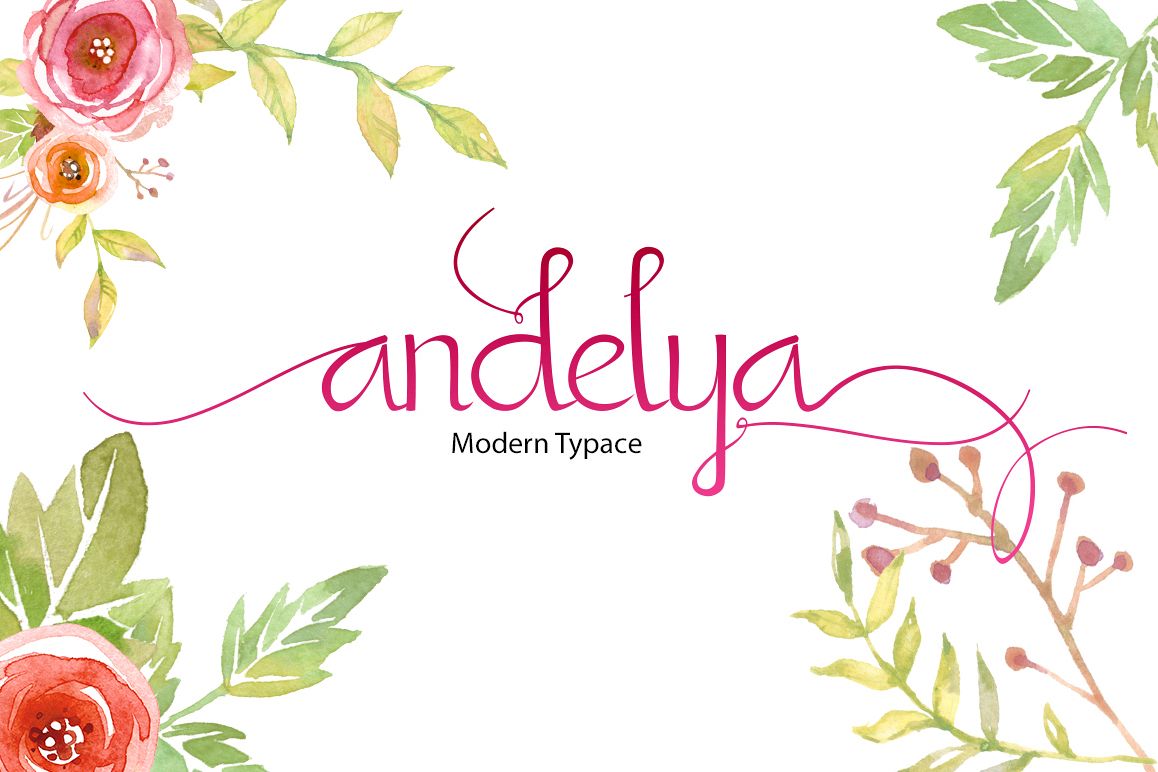
Andelya Font
Andelya-Regular
Andelya - a new fresh & modern typeface with decorative characters and a dancing baseline! So beautiful on invitation like greeting cards, branding materials, business cards, quotes, posters, and more!
Andelya come with 266 glyphs. The alternative characters were divided into several Open Type features such as Swash, Stylistic Sets, Stylistic Alternates, Contextual Alternates, and Ligature. The Open Type features can be accessed by using Open Type savvy programs such as Adobe Illustrator, Adobe InDesign, Adobe Photoshop Corel Draw X version, And Microsoft Word. And this Font has given PUA unicode (specially coded fonts). so that all the alternate characters can easily be accessed in full by a craftsman or designer.